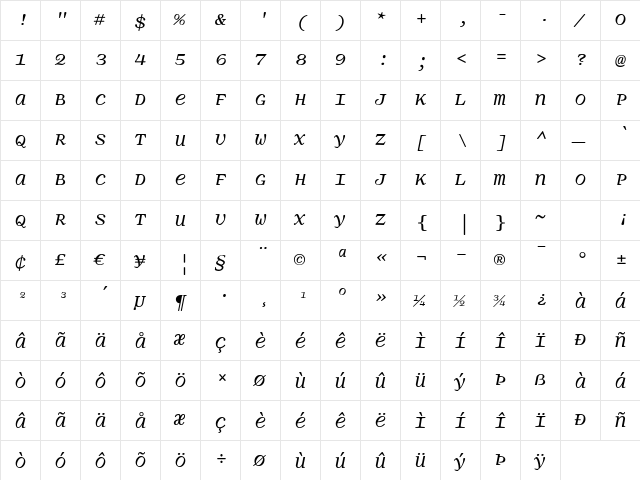
Panoptica Italic
Design Context for Panoptica Typeface
Panoptica offers clean, dependable letterforms without strong stylistic allegiance, making it a practical choice for designers who need flexibility. The slanted form adds forward momentum and visual energy.
Pro Tip: Try Panoptica for annotation and caption copy alongside an upright companion — the contrast in angle creates a dynamic but ordered typographic system.